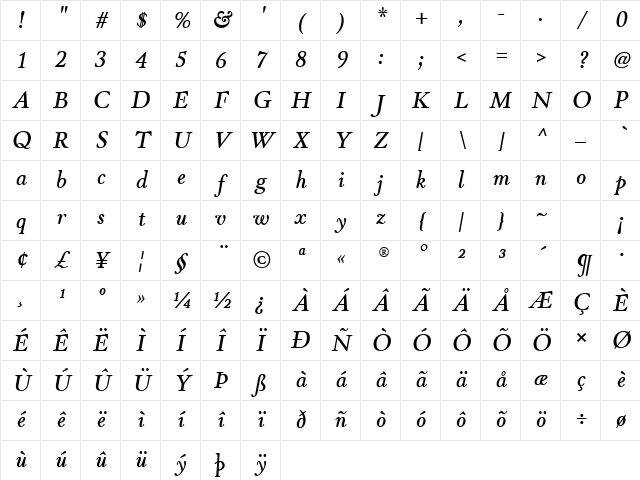
Winthorpe SemiBold Italic
Style: SemiBold Italic
Design Context for Winthorpe
Winthorpe is a composed and adaptable typeface that performs quietly and consistently across a wide range of design contexts. The slanted form adds forward momentum and visual energy. Its bold stroke weight gives it real presence on the page.
Pro Tip: Use Winthorpe for emphasis, pull quotes, and subheadings where its slanted energy can add rhythm to the layout.